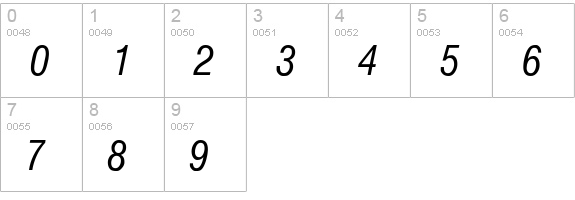
Milford Condensed Italic Font Details
Milford Condensed Italic is a distinctive, condensed-width, italic variant in the Milford typeface family \xE2\x80\x94 well suited to design and typography projects.
Milford Condensed Italic font is a sleek and stylish typeface that adds a touch of sophistication to any design. Its condensed form allows for more efficient use of space while still maintaining legibility and elegance. The italicized slant adds a sense of dynamism and flair, making it perfect for adding emphasis or creating a sense of movement in your designs. This font is the perfect choice for projects that require a modern and refined look, such as branding, advertising, packaging, and editorial design. Its versatility makes it suitable for both digital and print media, ensuring that your message is delivered with clarity and impact. One of the best features of Milford Condensed Italic font is that it is absolutely free. Yes, you read that right! This high-quality font is freely available to download at FontsMarket.com. This means that you can elevate your designs without breaking the bank or compromising on quality. With just a few clicks, you can add this beautiful font to your collection and start creating stunning visuals that will captivate your audience. Whether you're a professional designer or a novice enthusiast, Milford Condensed Italic font is a must-have in your toolkit. Its clean and streamlined design, combined with the italicized slant, gives your projects a unique and contemporary edge. So why wait? Head over to FontsMarket.com and download this amazing font for free today!